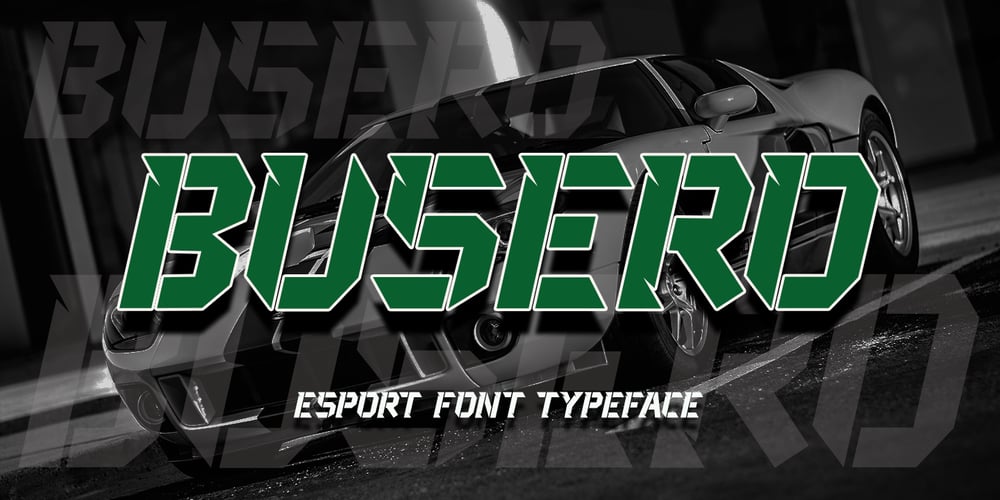
Busero Font Family was designed by Saiful Anwar and published by Sealoung. Busero contains 1 styles and family package options. Busero is a bold and powerful display font. It celebrates abstract shapes in all their eclectic beauty. Add this font to your creative ideas and notice how it makes them stand out!